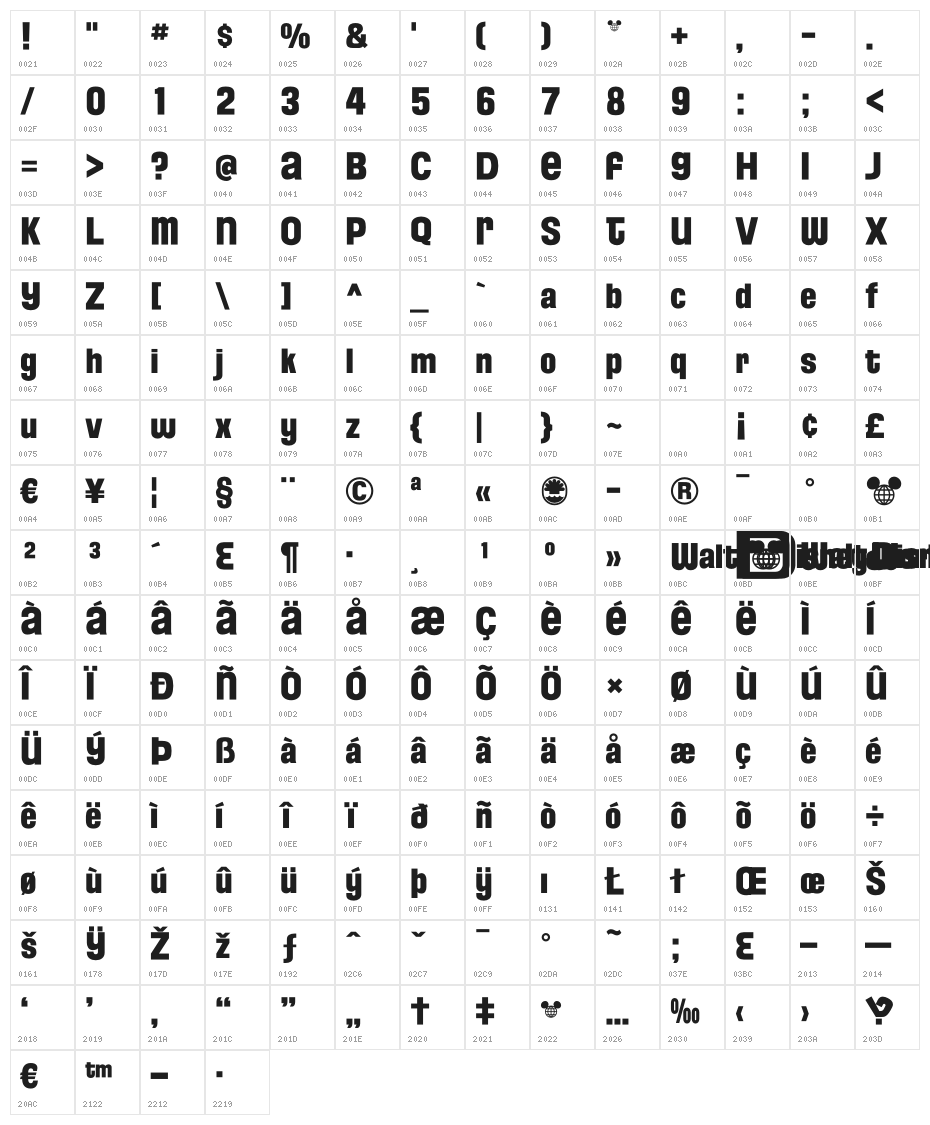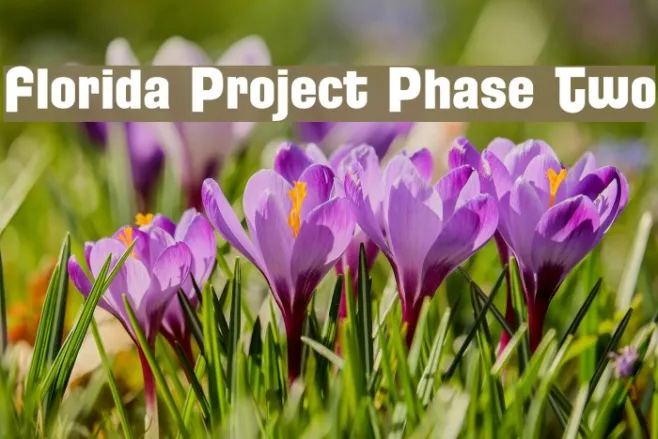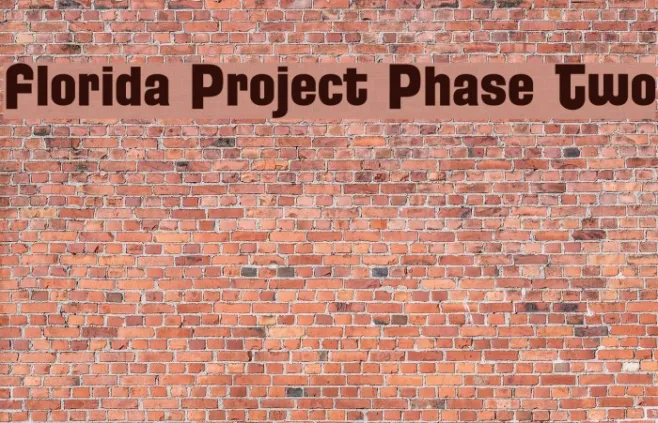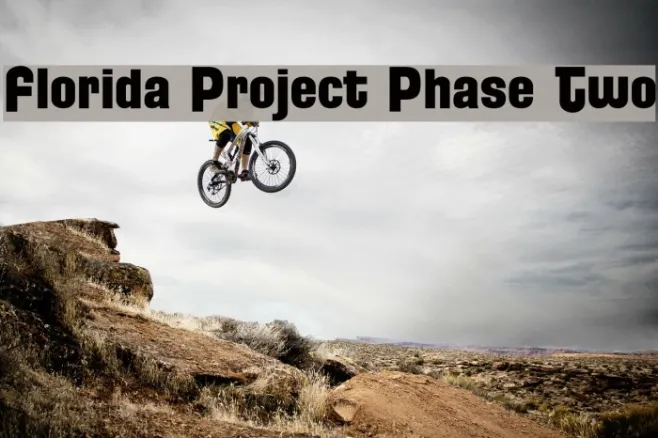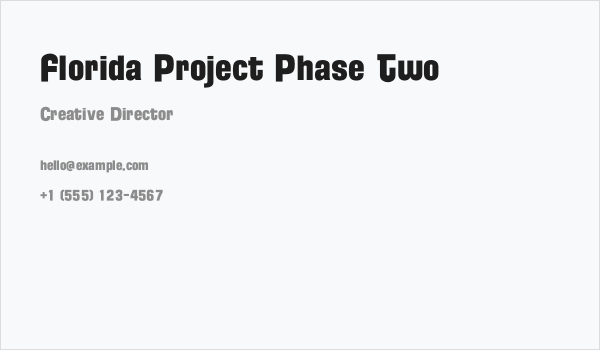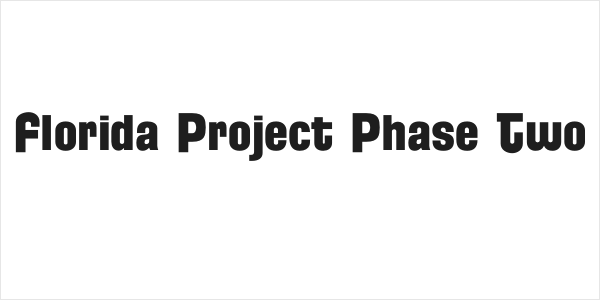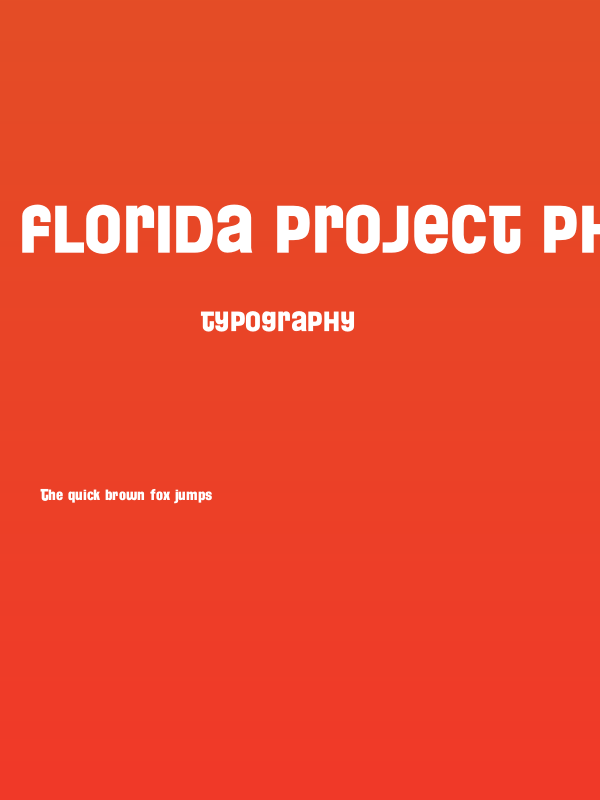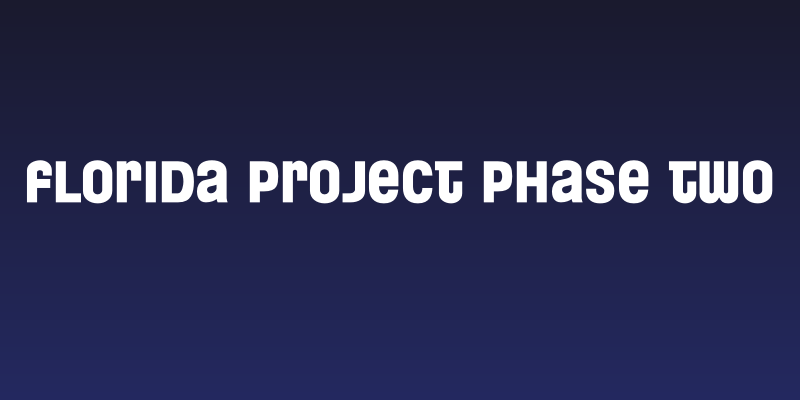
Florida Project Phase Two Font
Florida Project Phase Two Description
This font exhibits a bold and robust style with a strong presence. The characters are uniformly thick, creating a sense of stability and confidence. The uppercase and lowercase letters maintain a consistent weight, contributing to a cohesive look. The numerals are clear and easily distinguishable, making them suitable for various applications. The special characters are designed with the same boldness, ensuring they stand out effectively. Overall, the font's design is modern and impactful, making it ideal for attention-grabbing headlines and signage.
| Use Case | Headlines, Logos, Signage |
| Proposed Projects | Ideal for branding, advertising, poster design, and any project requiring a bold statement. |